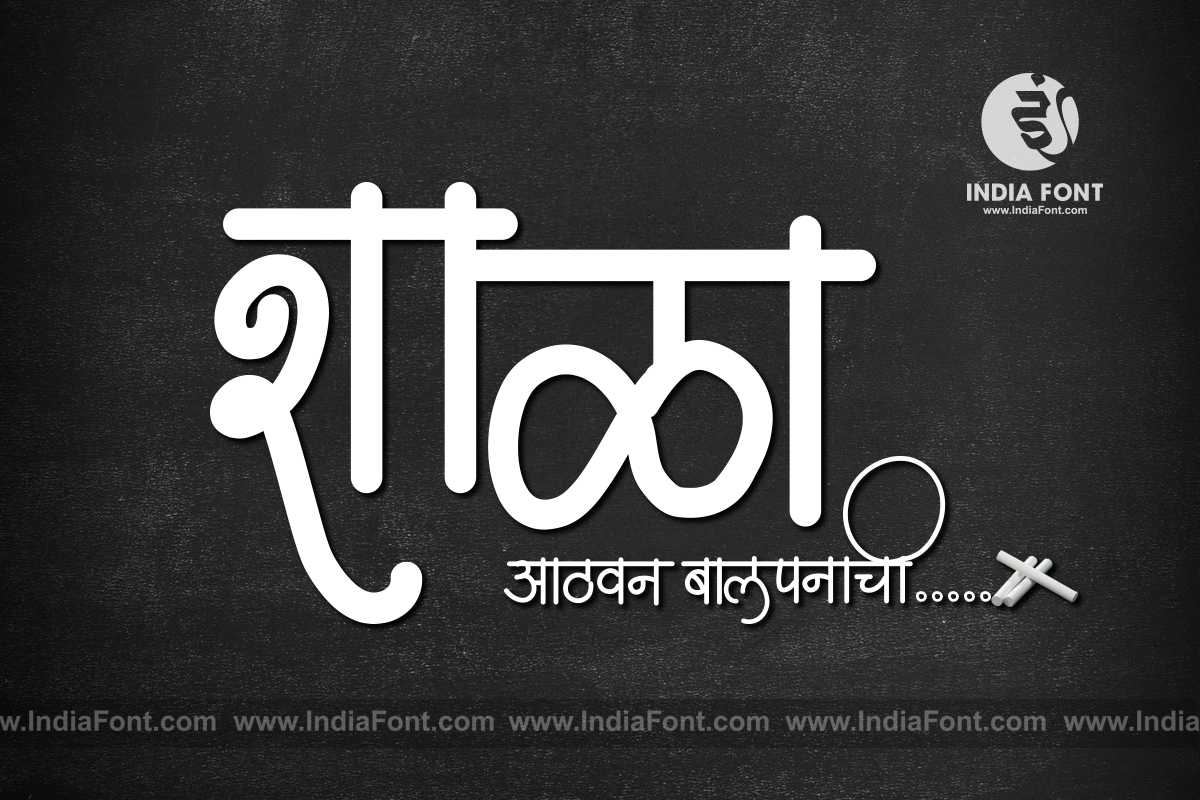
AMS Sudha
Introducing AMS Sudha, a publication font designed to enhance the readability and clarity of your content. Whether you're creating articles, books, or digital publications, AMS Sudha ensures that your text stands out and engages readers. This stylish Hindi font offers a balance of elegance and legibility.
AMS Sudha Design Inspiration
AMS Sudha font design inspiration and usage example
AMS Sudha clear elegant publication font showcase
About AMS Sudha Font
Introducing AMS Sudha, a publication font designed to enhance the readability and clarity of your content. Whether you're creating articles, books, or digital publications, AMS Sudha ensures that your text stands out and engages readers. This stylish Hindi font offers a balance of elegance and legibility. This publication font combines elegance with functionality, making it perfect for various design applications.
AMS Sudha is a professionally crafted publication typeface that brings clarity and style to your projects. Designed with attention to detail, it supports hindi and marathi characters flawlessly.
Whether you're working on wedding-materials, invitations, headers-titles, or other creative projects, AMS Sudha delivers consistent performance across both digital and print media. This carefully designed typeface ensures readability and visual appeal in all your design work.
About AMS Sudha Typography Style
AMS Sudha is a professionally crafted publication font that exemplifies modern Hindi typography design. This free font is perfect for designers seeking professional branding and logo design projects.
Available in 1 weight and supporting hindi, marathi scripts, AMS Sudha offers exceptional versatility for both digital and print media. Whether you're working on wedding-materials, invitations, headers-titles, this carefully designed typeface ensures consistent quality and professional results across all your typography projects.